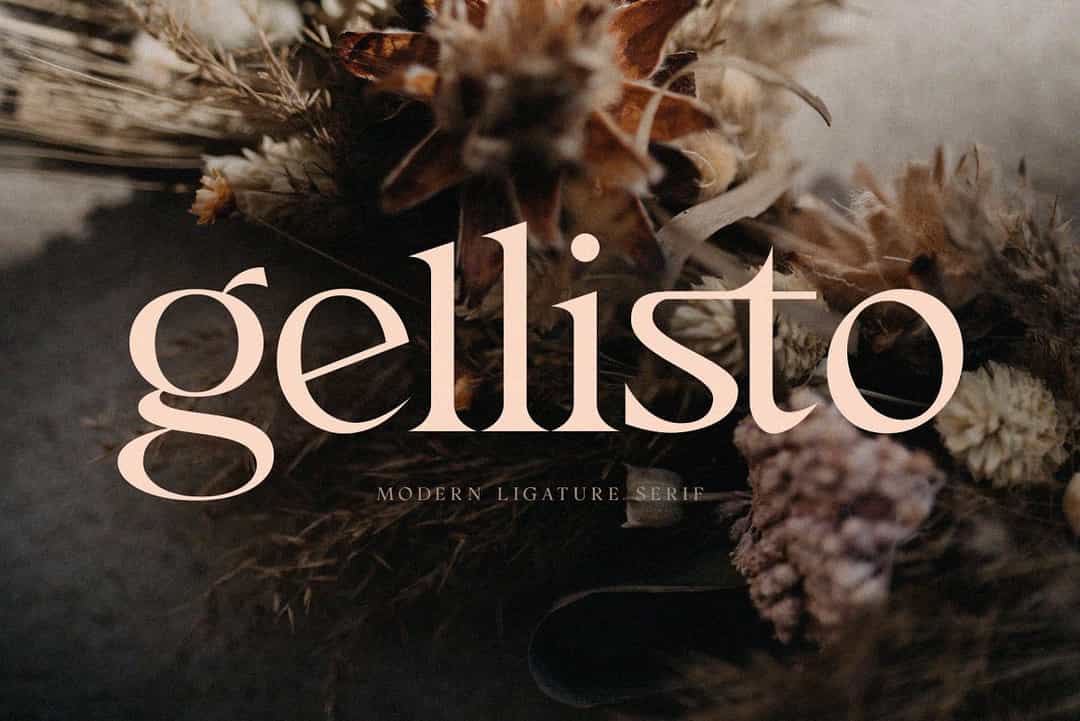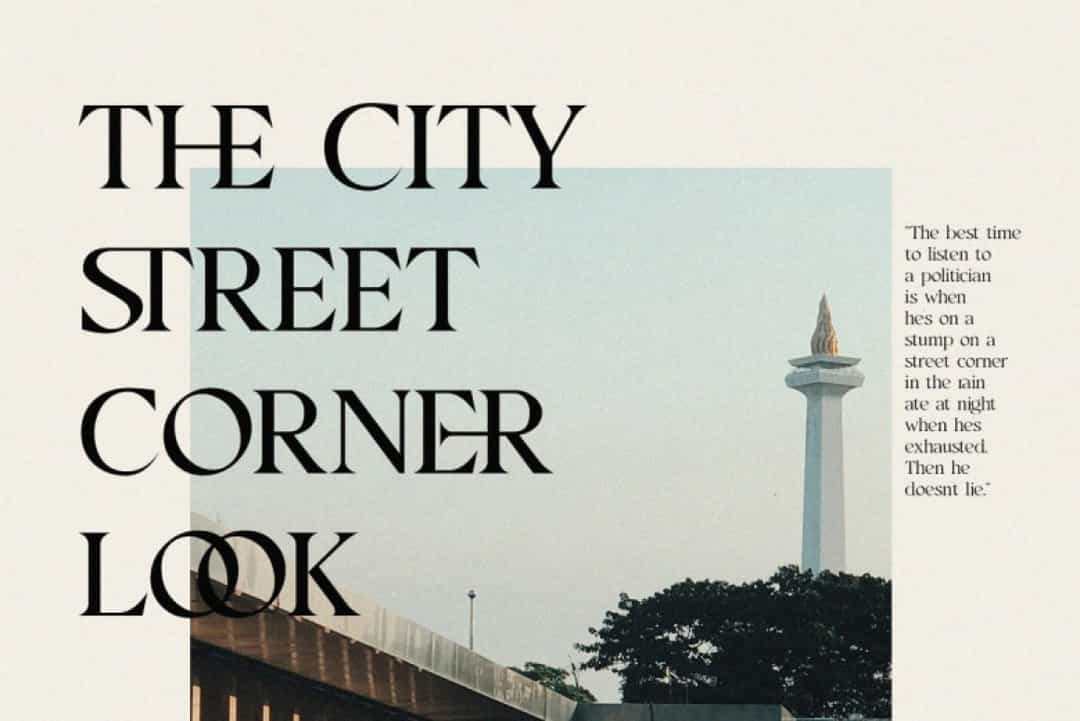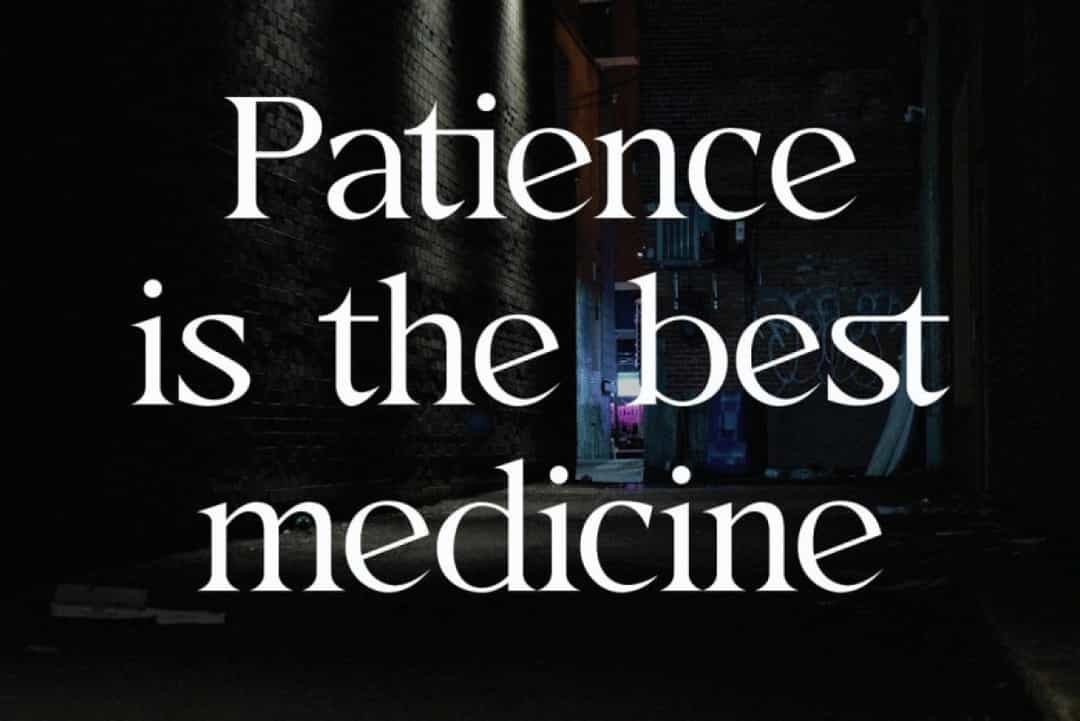
Gellisto can be described as a modern, stylish, and elegant serif font which is best used to display headings and logos, brand magazines, packaging products for sale and invitations. With sleek lines and soft curves that add quality, Gellisto adds style and quality.